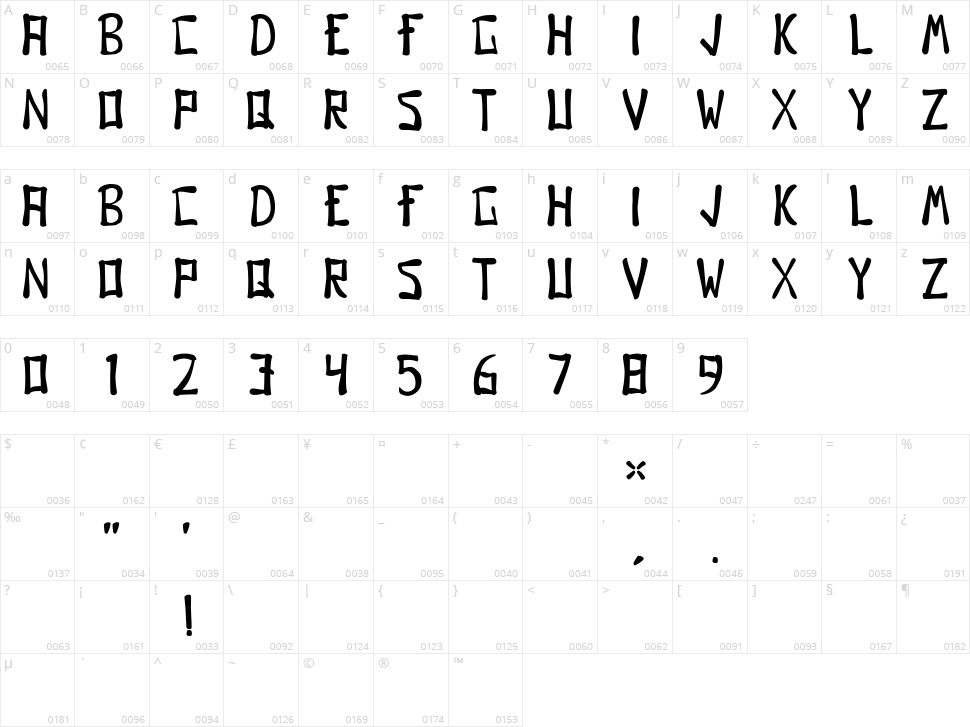
GOMO
A true type font by P.D. Magnus
Gomo is a font based on the title of Gomo*Fasta, a strategy game which I
designed. The game is a variant of Go Moku, so the font is intended to
have an oriental feel. I designed the logo in Freehand and adapted the
TrueType font using PfaEdit. There are alpha caps plus numerals and a
few random punctuation marks.